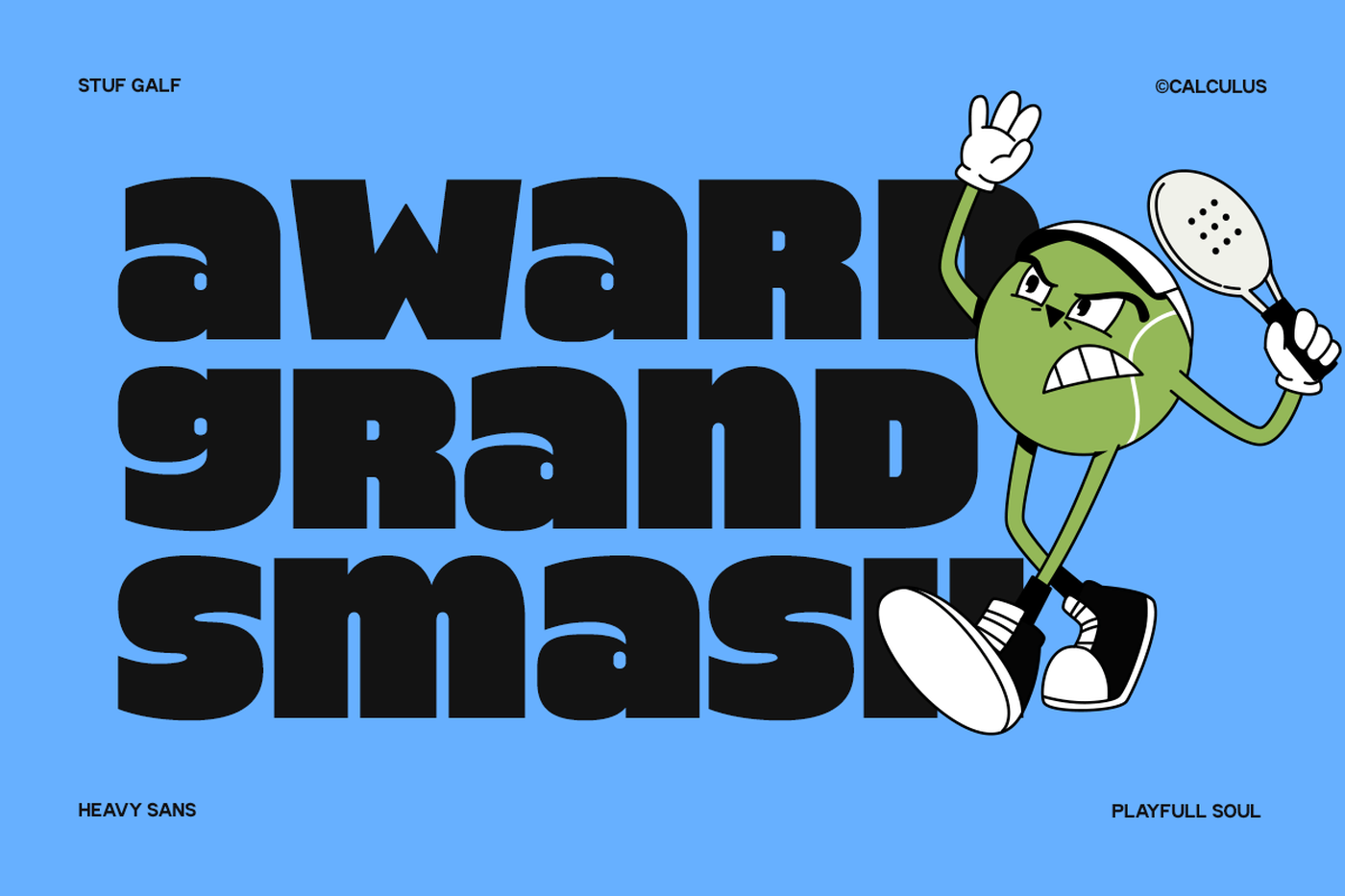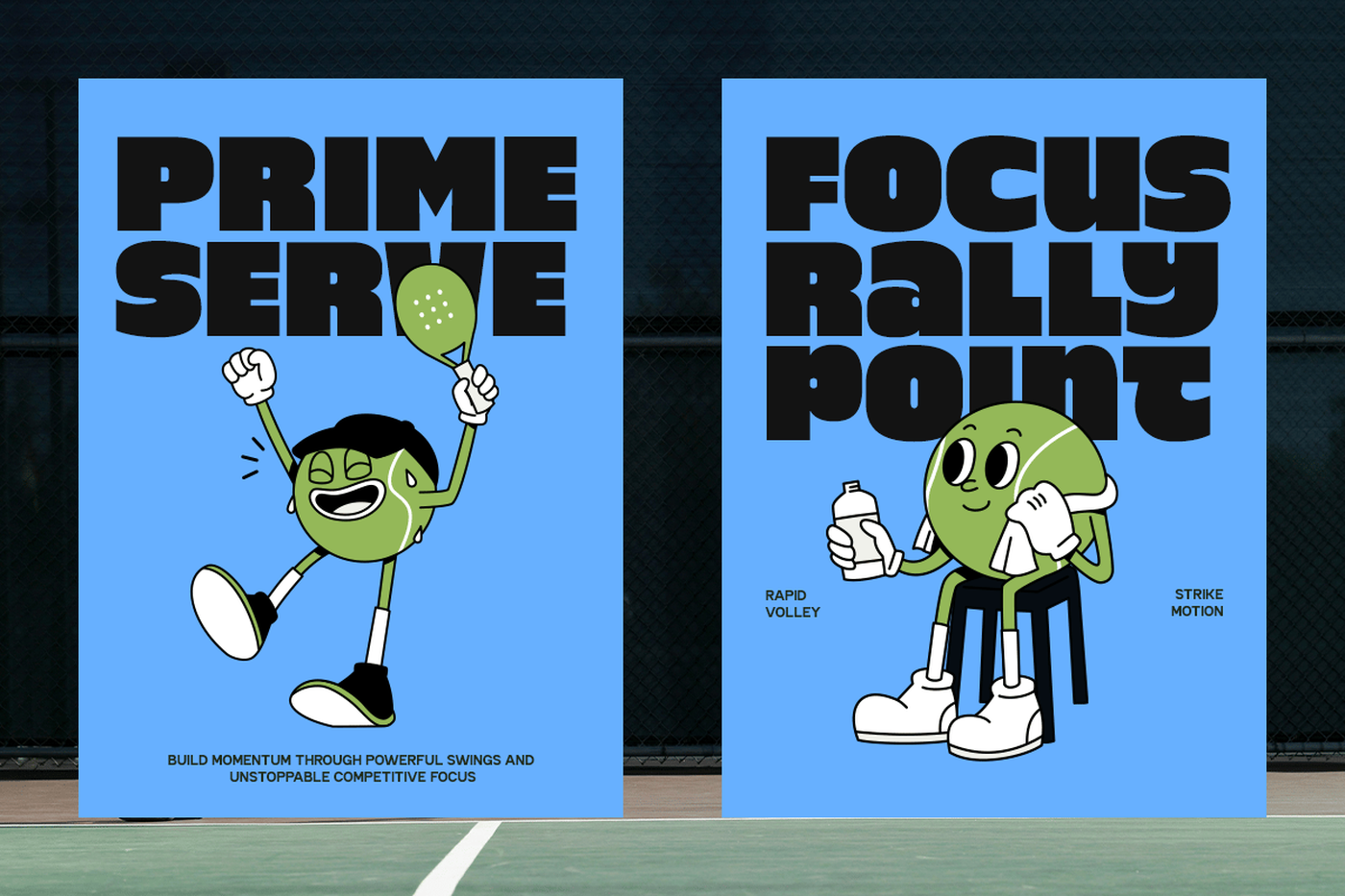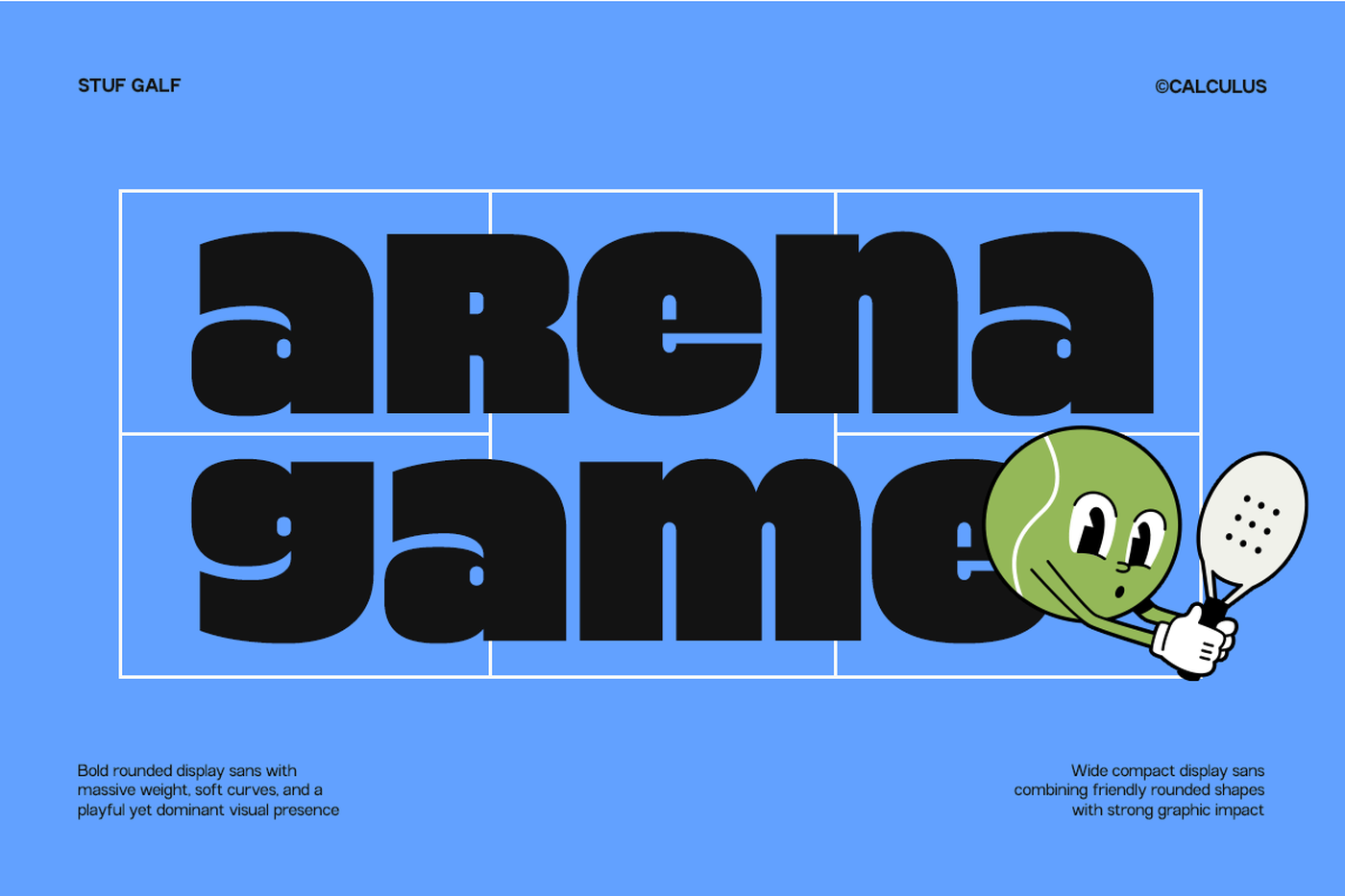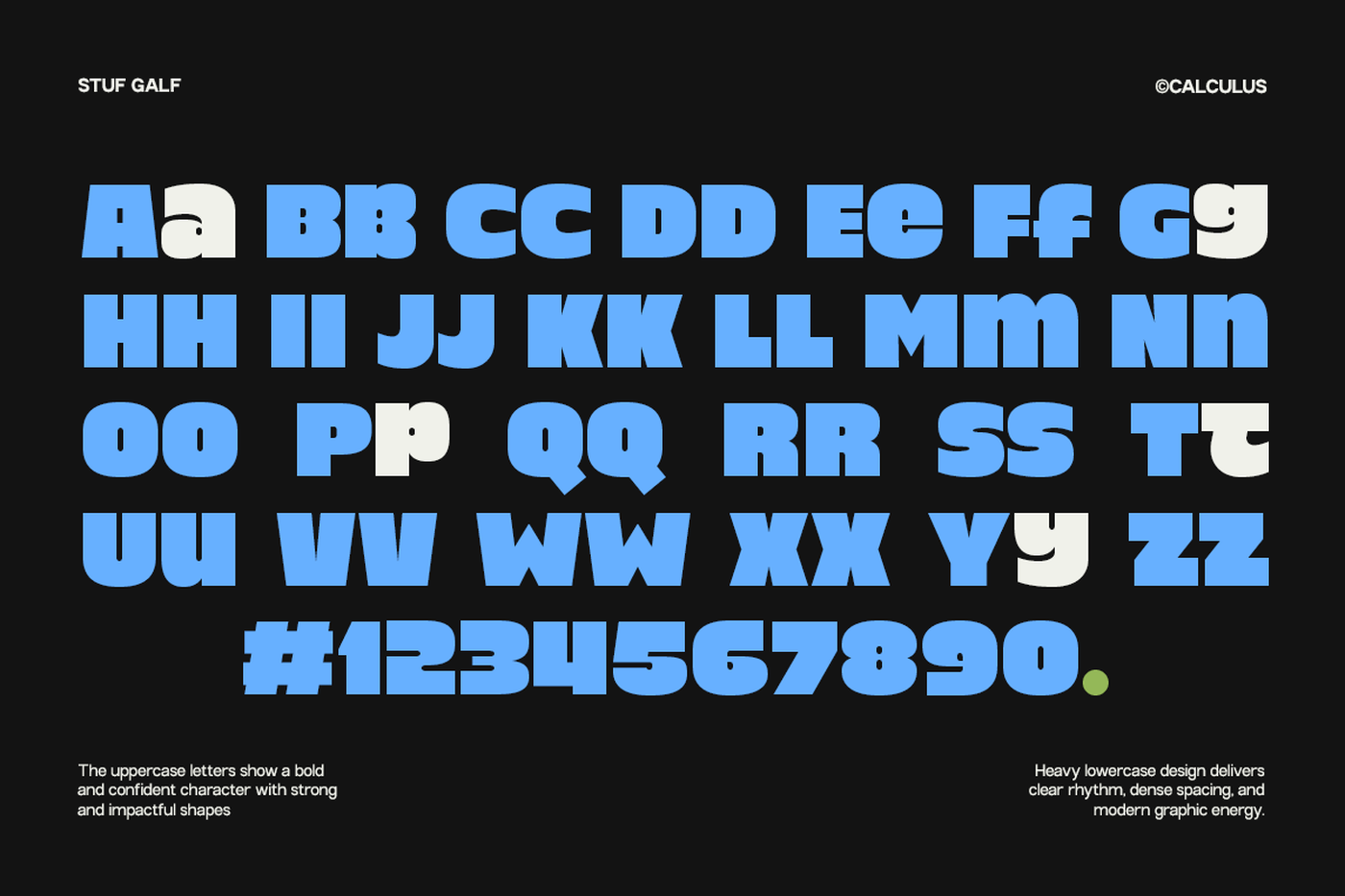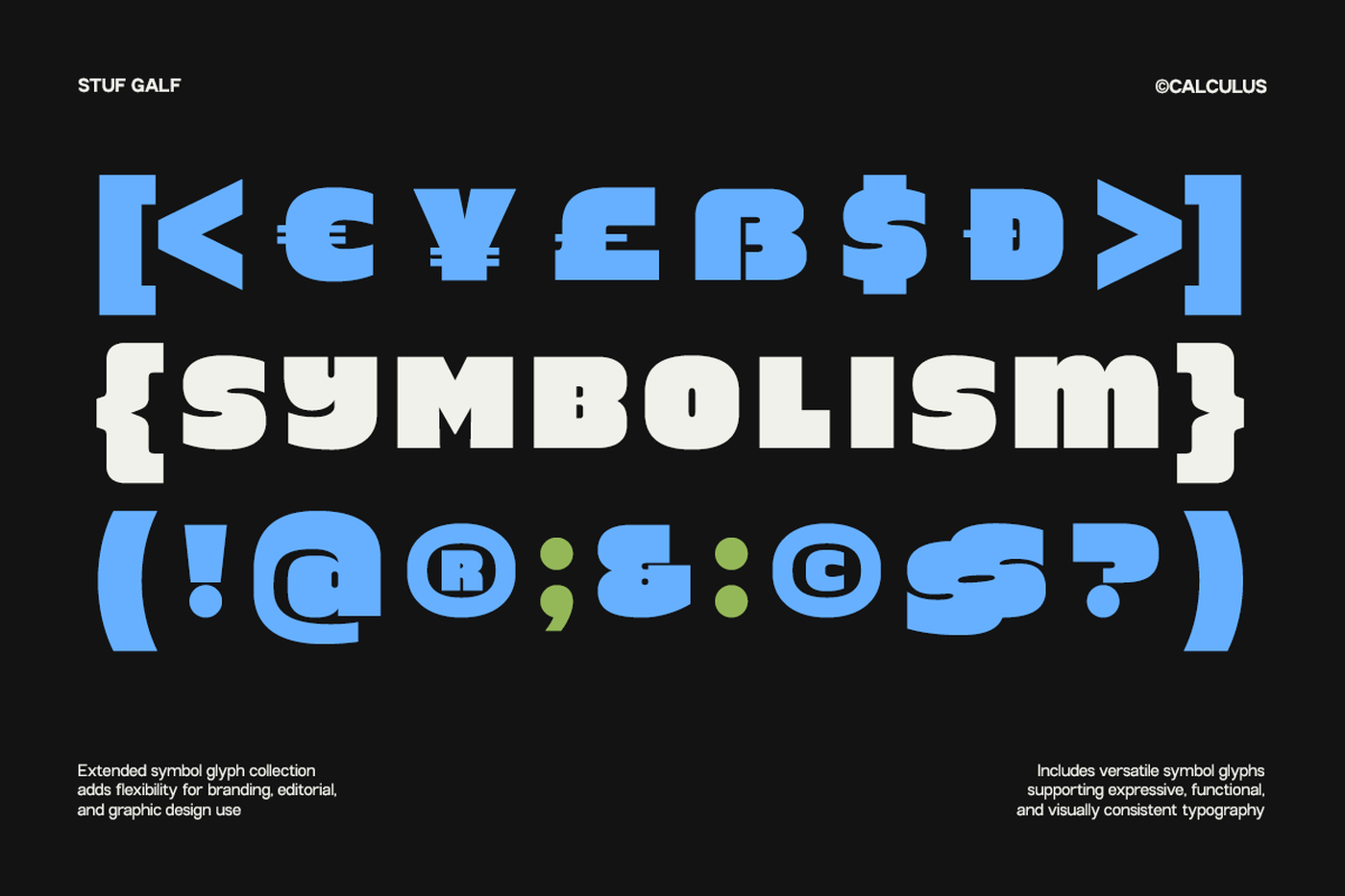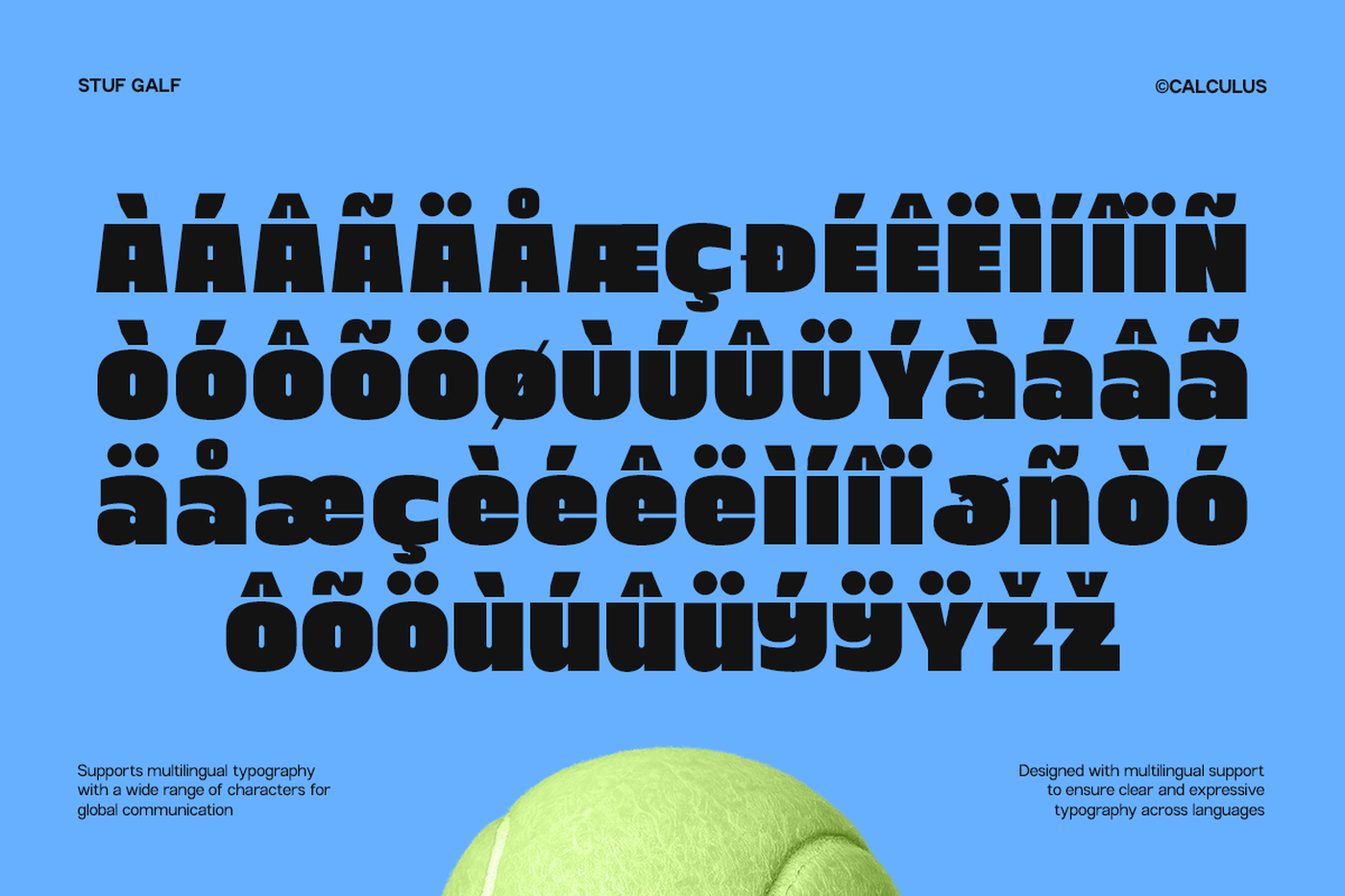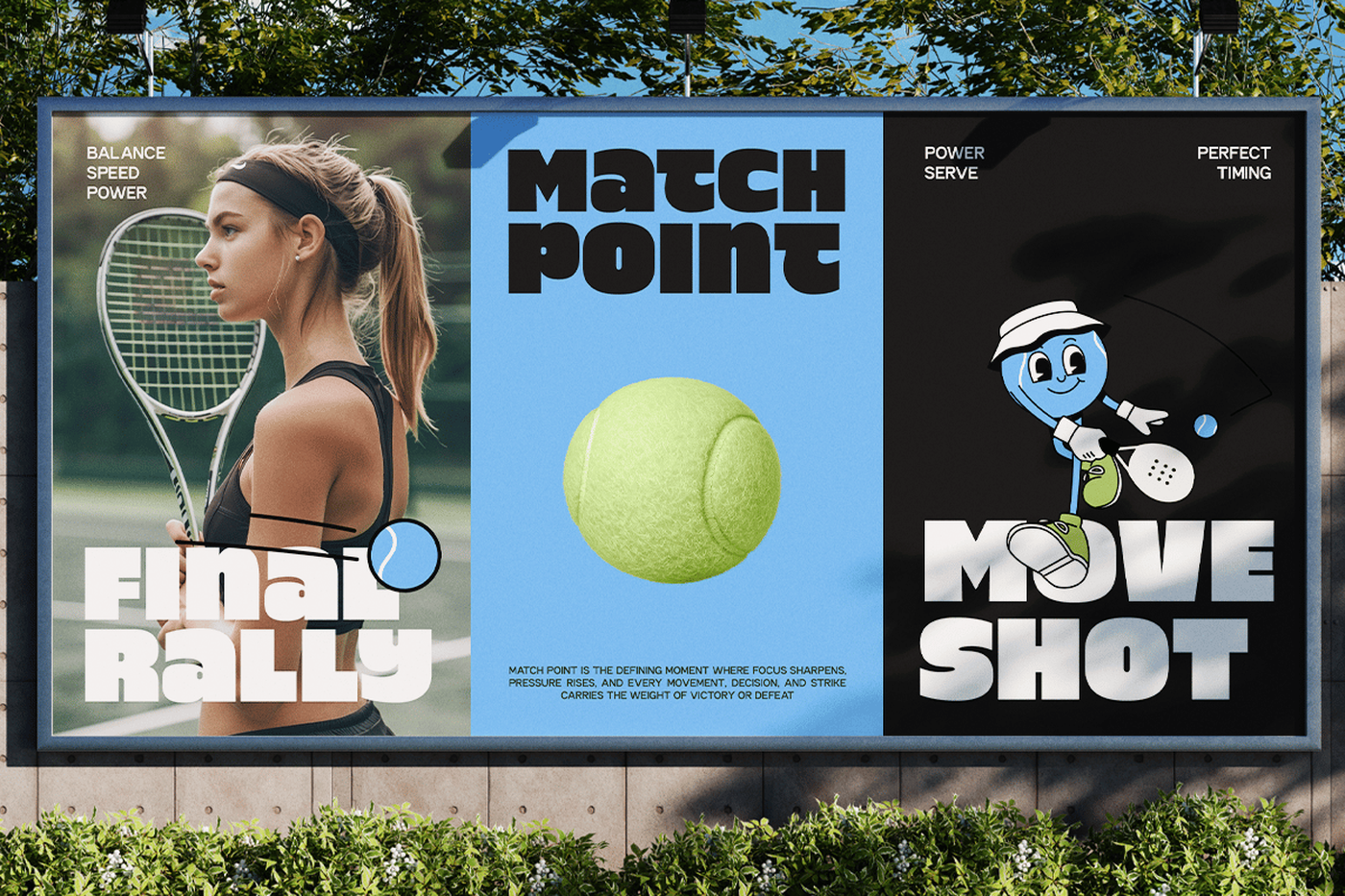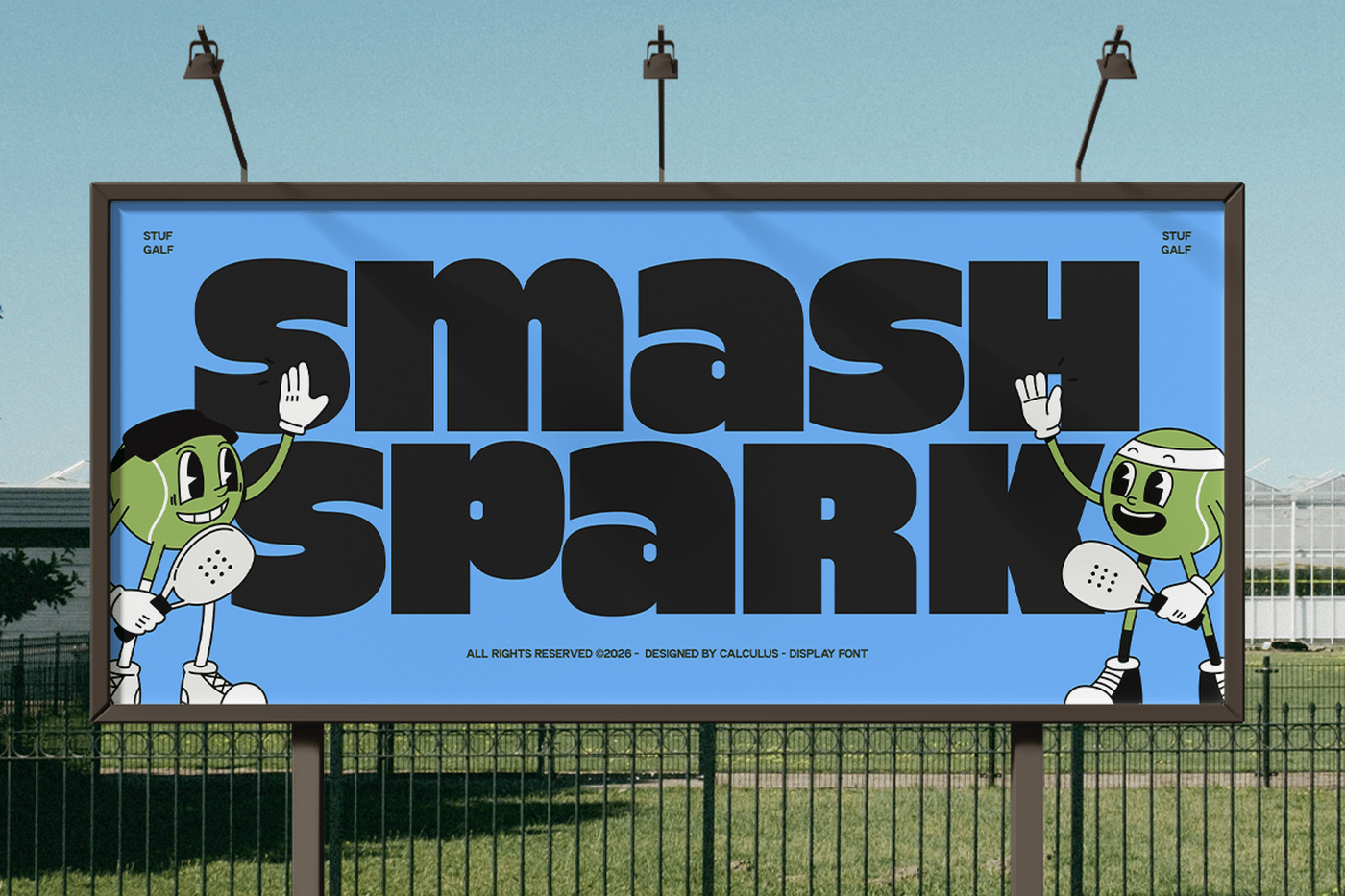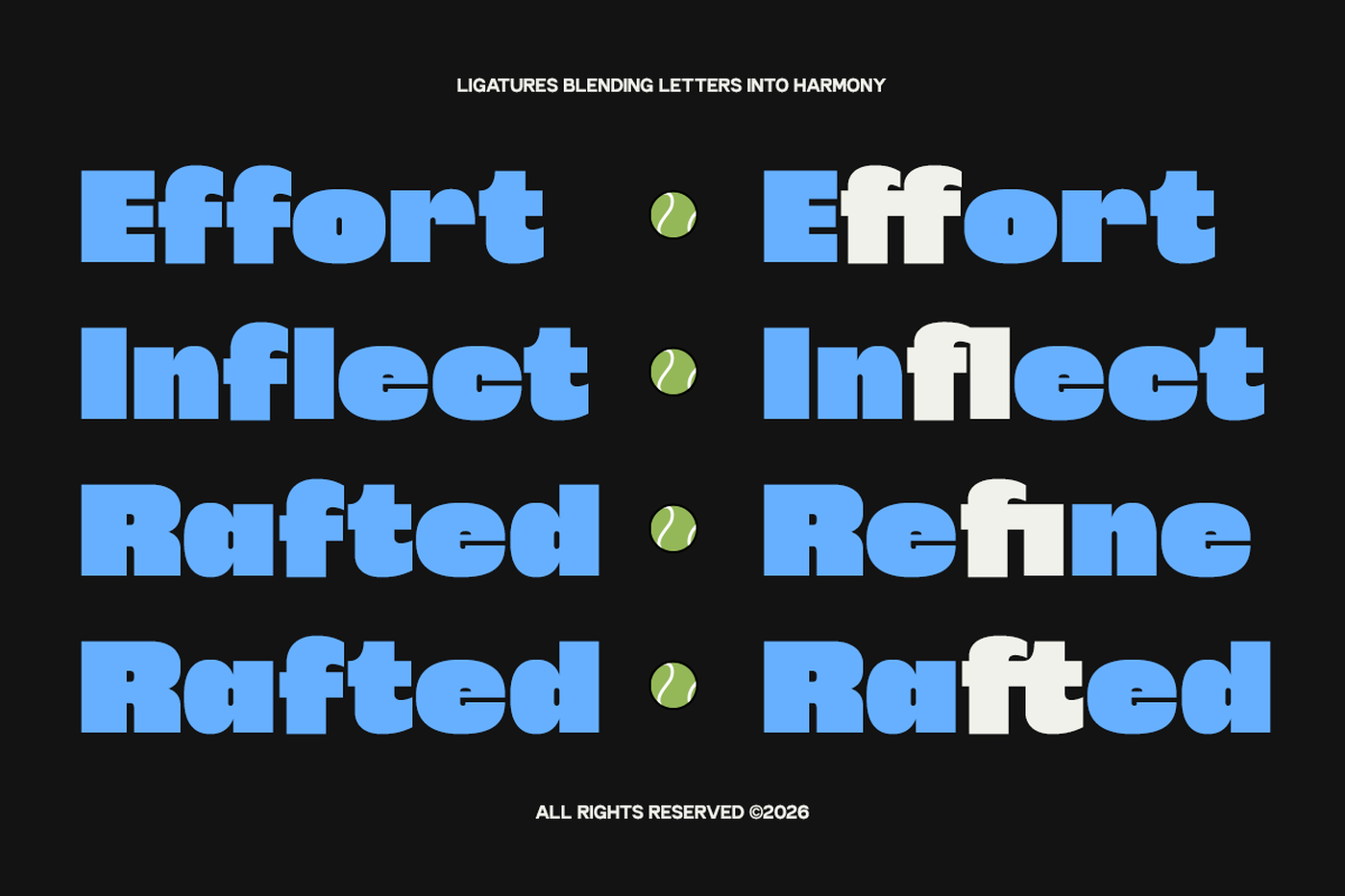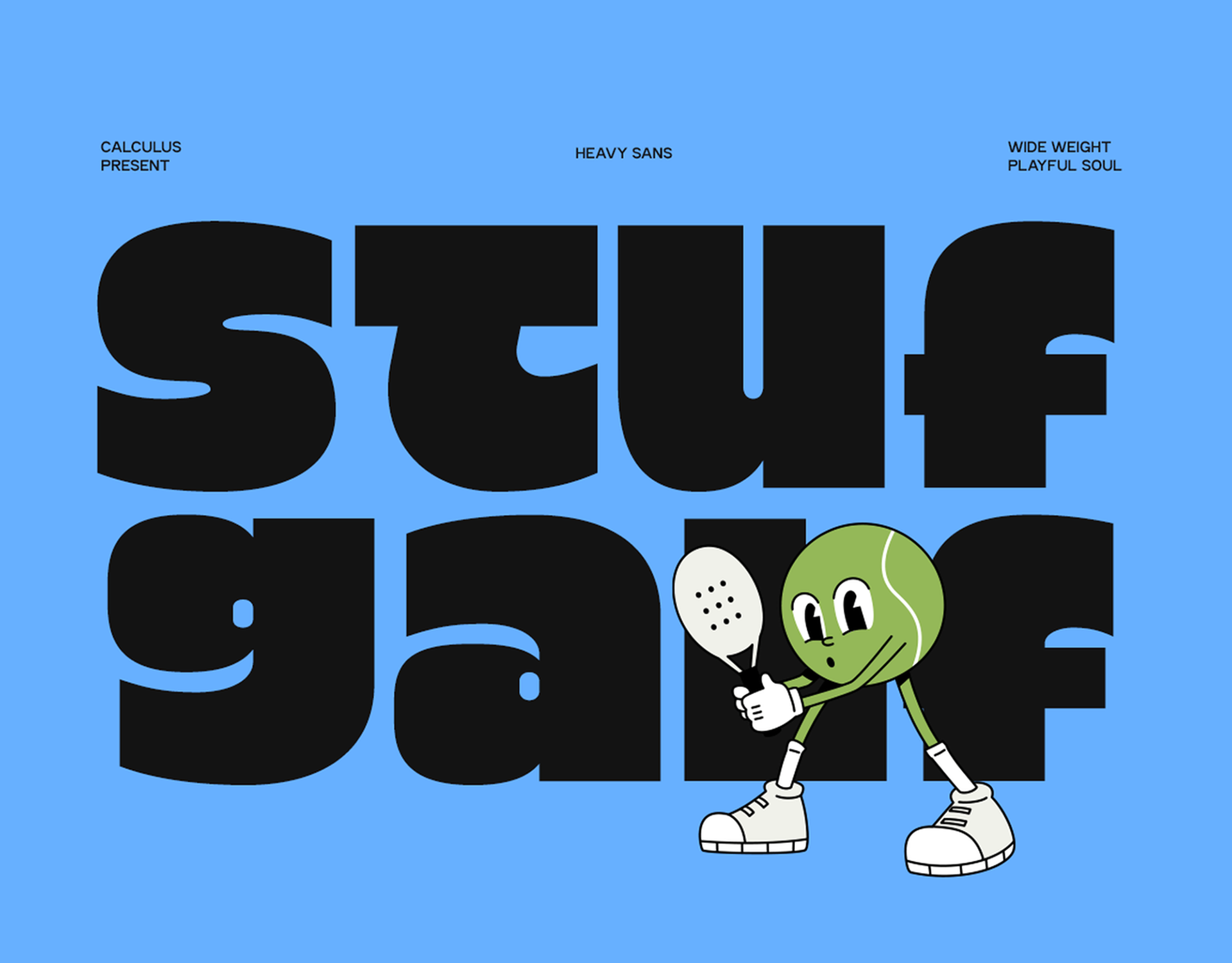
Stuf Galf - Retro Bold Display Font
CC Stuf Galf is a bold display typeface designed to deliver a strong visual presence with a playful and expressive attitude. Built with chunky forms, smooth curves, and a distinctive character, Stuf Galf brings a unique balance between bold impact and friendly personality. With its rounded shapes and solid construction, CC Stuf Galf creates a lively and eye-catching typographic voice. The thick strokes and soft edges enhance its approachable feel, while its bold structure ensures high visibility—making it perfect for standout headline compositions.
Designer: Calculus Type
Font: Stuf Galf